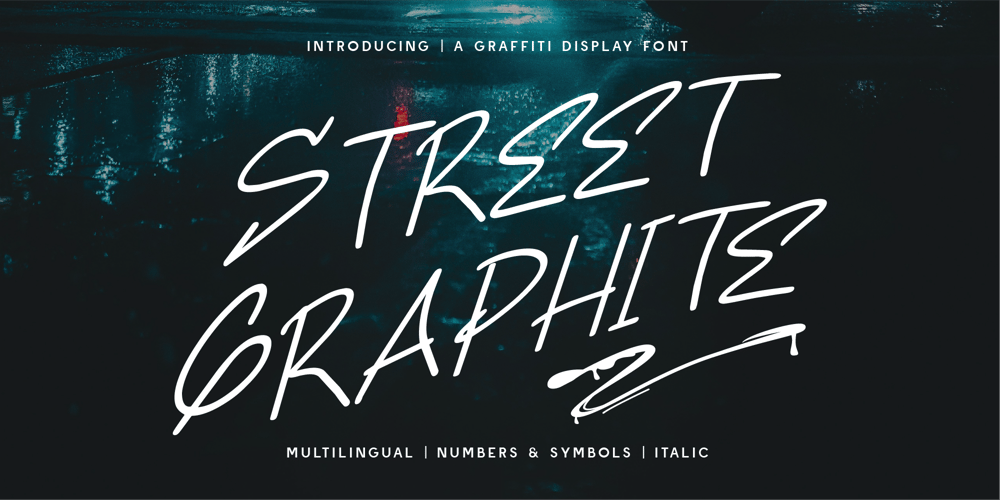
CF Street Graphite
CF Street Graphite font
CF Street Graphite Font Family was designed by Gilang Mei Nugraha, Frederik Aristaputra and published by Creatifont Studio. CF Street Graphite contains 2 styles and family package options. Street Graphite – A Raw & Energetic Graffiti Display FontUnleash the raw energy of street art with Street Graphite, a graffiti display font designed for bold expression and urban creativity. With its fast, slanted strokes, natural spray-paint drips, and freestyle flow, this typeface brings the authentic feel of hand-drawn graffiti to your projects.Perfect for streetwear branding, music covers, posters, urban advertising, digital art, and bold editorial designs, Street Graphite captures the spontaneity and rebellious spirit of street culture. Whether you’re crafting high-energy typography or raw, unfiltered messaging, this font delivers an authentic underground aesthetic.Why Choose Street Graphite?🎨 Graffiti-Inspired Freestyle: A bold, slanted script with spray-paint details.🔥 High-Impact & Expressive: Perfect for urban branding, music, and sports designs.🖌 Raw & Edgy Handwriting: Designed to replicate real street-style lettering.🌍 Multilingual & Versatile: Includes numbers, symbols, and extensive language support.Take your designs to the streets with attitude and authenticity—Download Street Graphite now and make your mark with urban energy! 🎨🔥A SUMMARY OF WHAT’S INCLUDED:- Standard Character A-Z, a-z, 0-9, Punctuation & symbols- Regular and Italic- Works on PC & Mac- Simple installation- Accessible in Adobe Creative Suite (Ai, Ps, Id, etc.) even work on Microsoft Word.- PUA Encoded Characters – Fully accessible without additional design software.🌟If you come across any issues or notice anything we might have overlooked while using this product, please feel free to reach out to us. We greatly value your feedback as it helps us enhance and refine our products. Thank you!